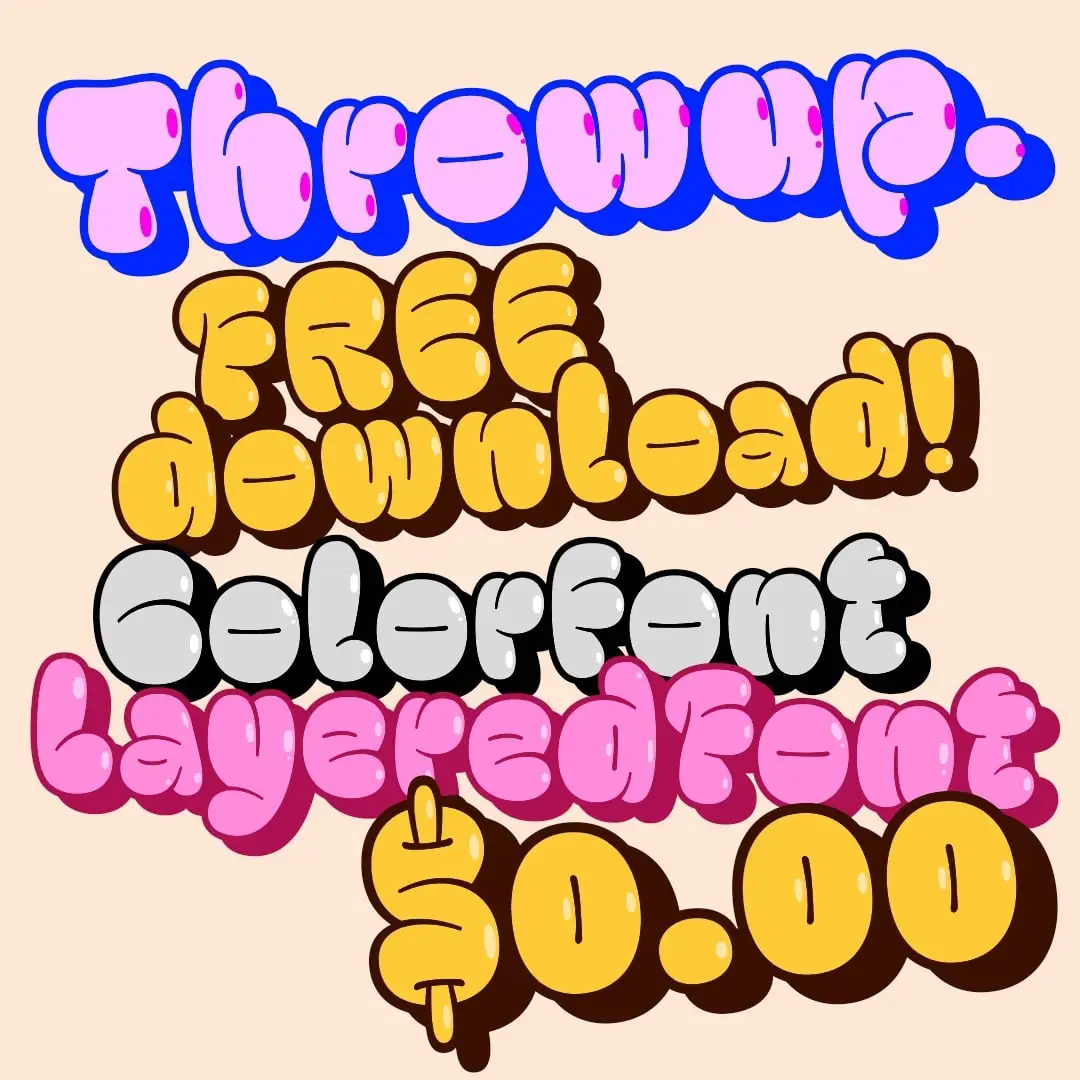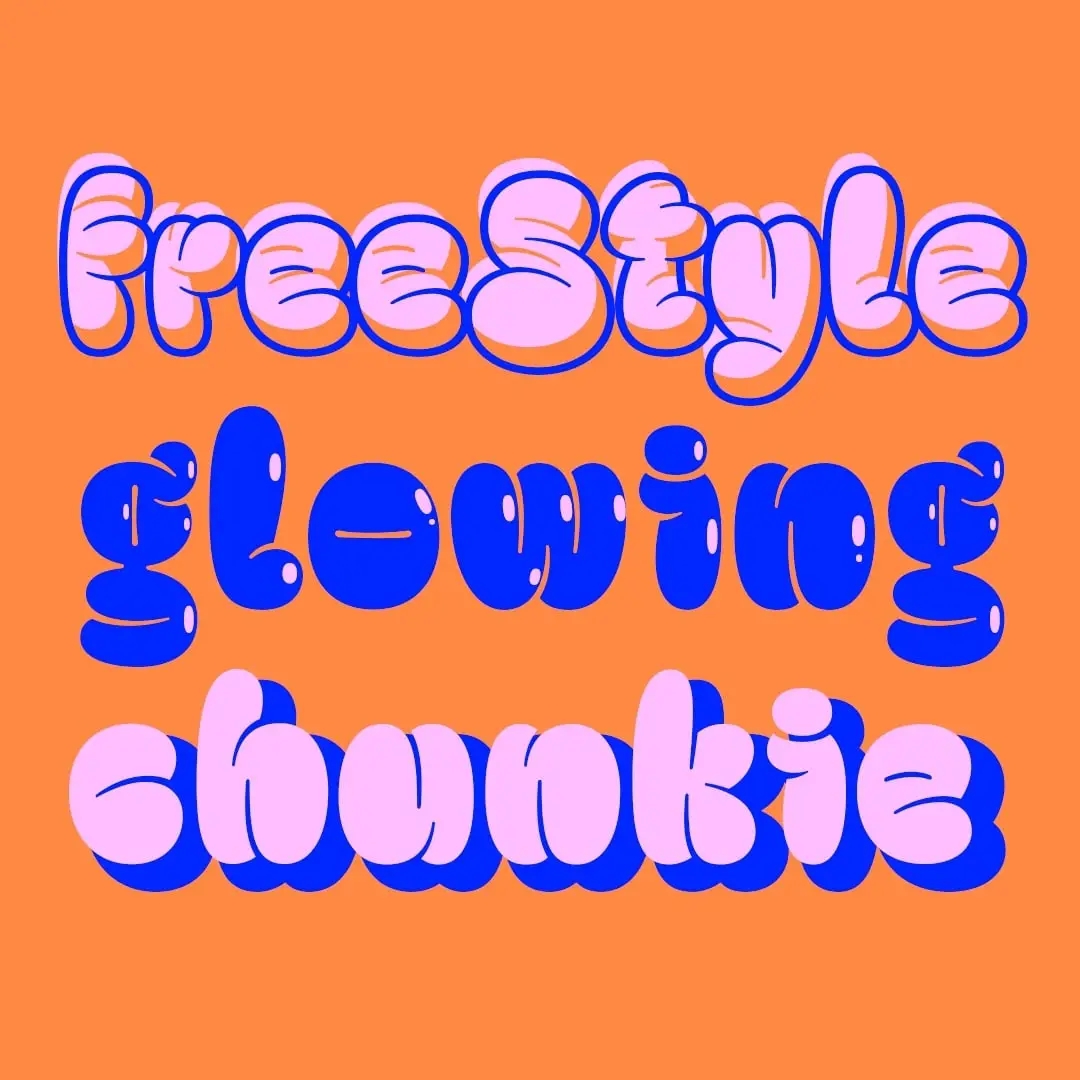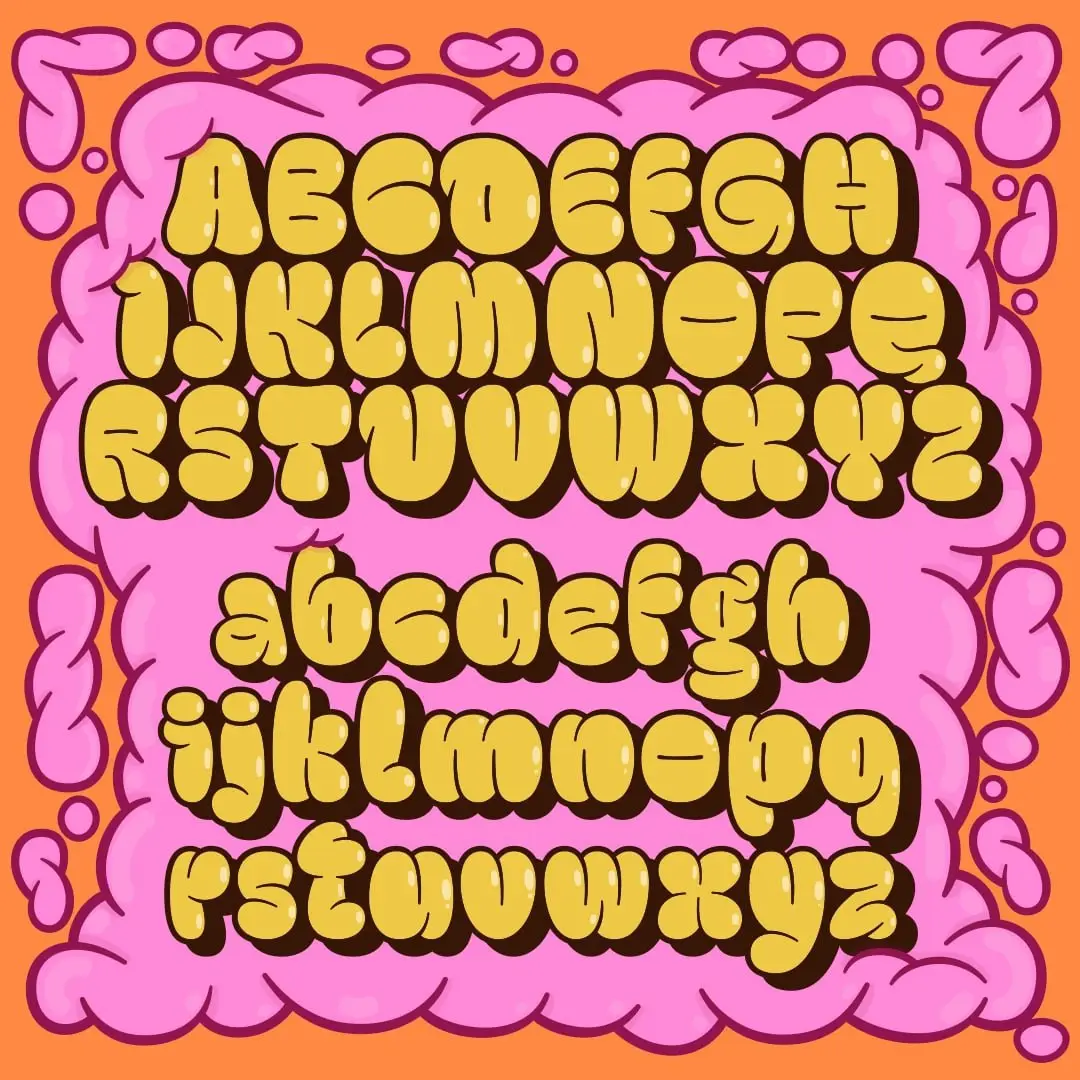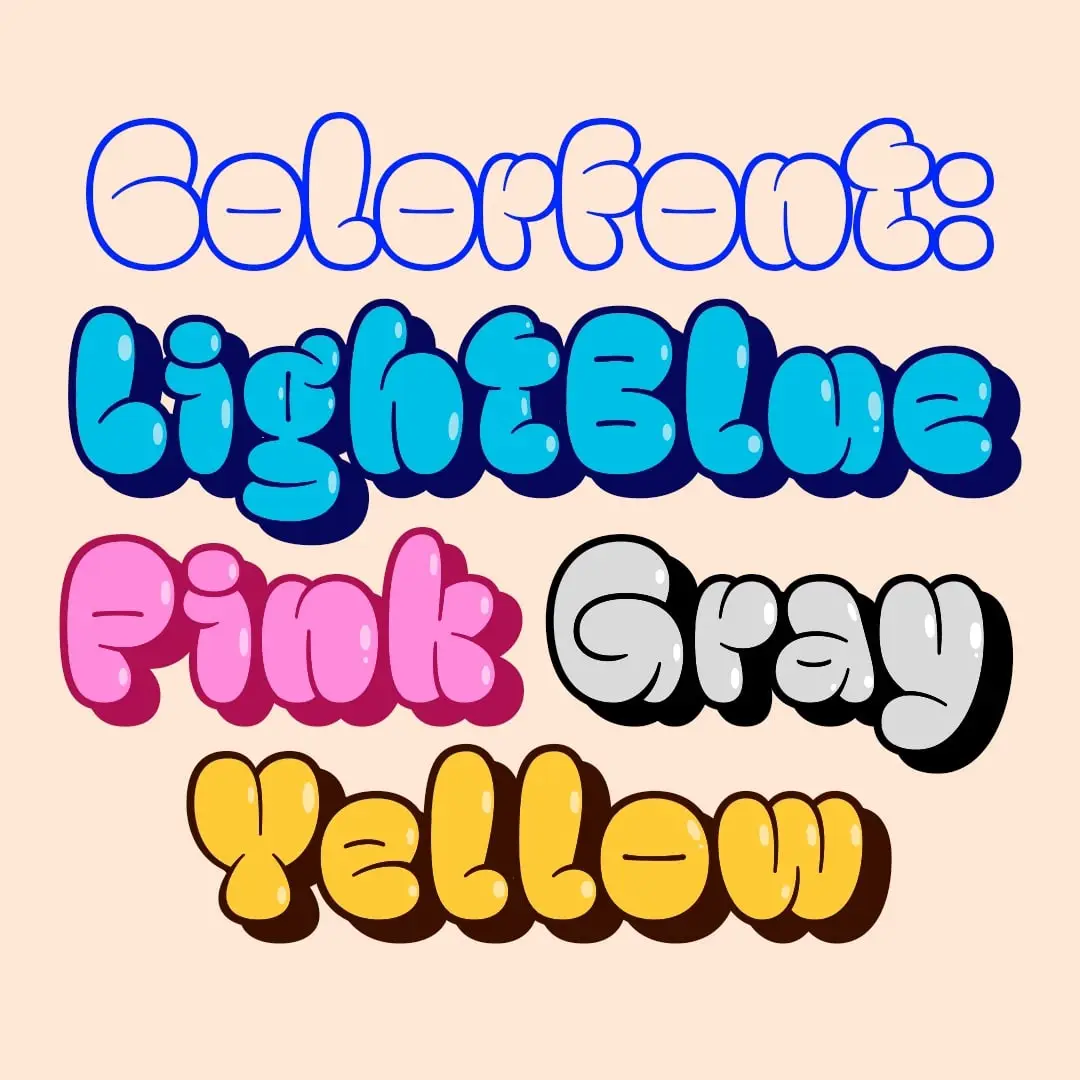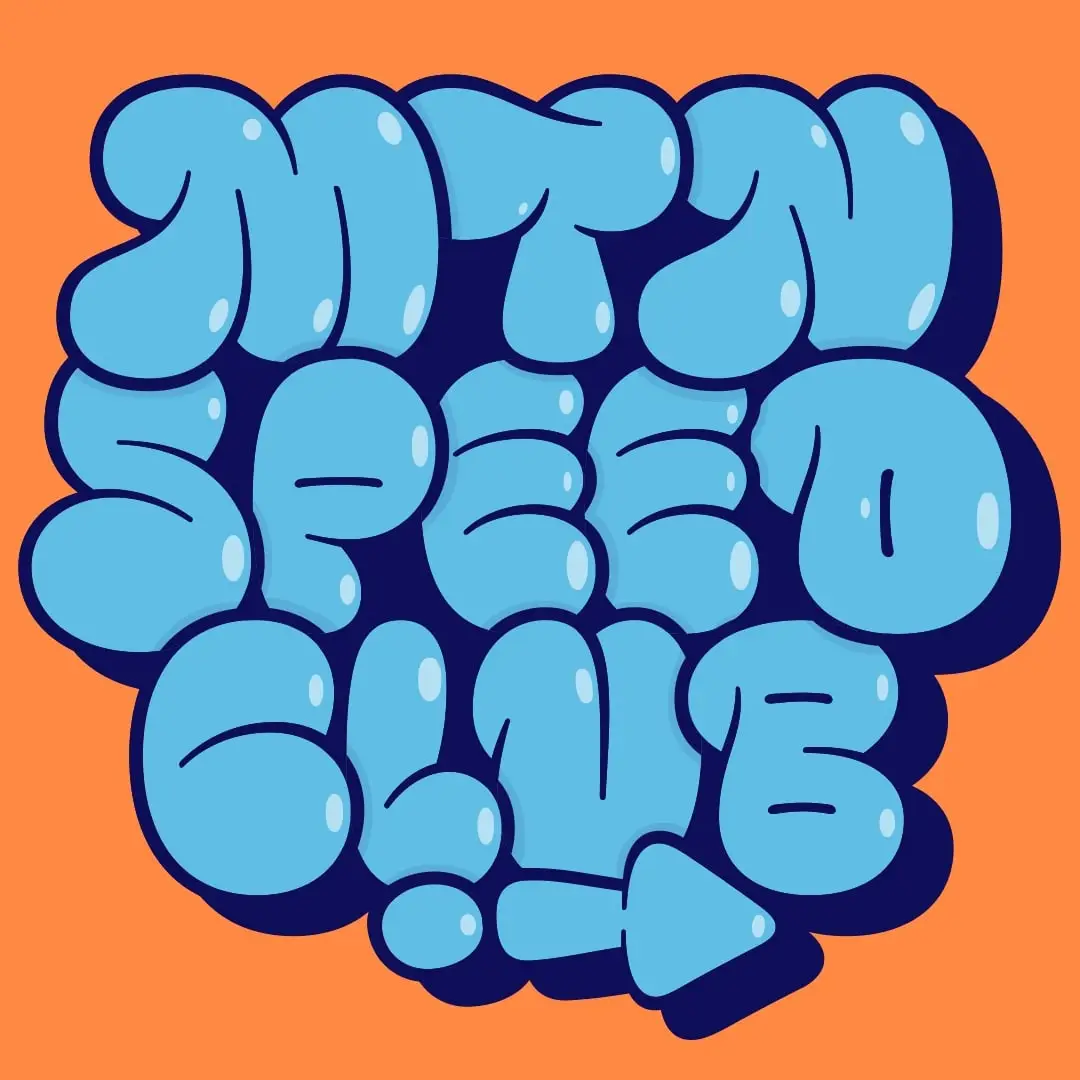
Throwup Font
The Throwup Font is a unique and expressive typeface that captures the essence of street art and urban culture. With its bold and playful design, this font is perfect for projects that require a touch of creativity and individuality.
• Stylish graffiti-inspired design